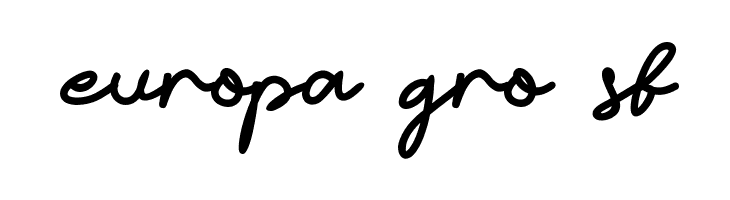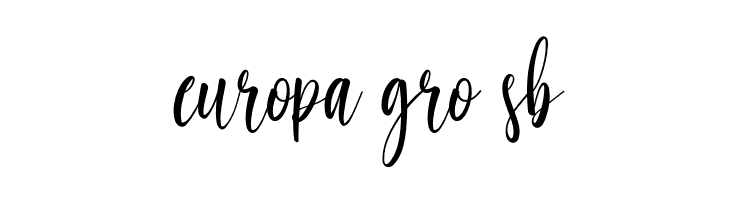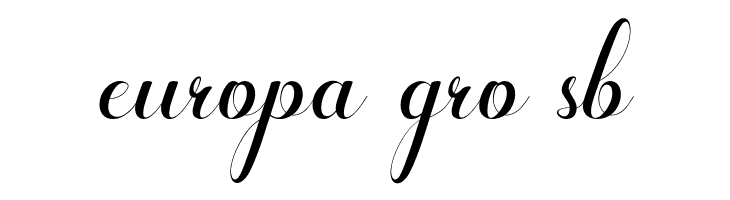
An elegant script font with intricate loops and swashes, perfect for sophisticated designs.
A dynamic and flowing script font with elegant, fluid strokes.
A playful and whimsical script font with elegant curves and dynamic contrast.
A charming, cursive script font with elegant, flowing lines and decorative flourishes.
A lively, cursive font with interconnected letters and a playful, elegant style.
A lively, flowing script font with elegant, cursive strokes.
A playful, flowing script font with a natural handwritten style.
A cursive, handwritten font with elegant loops and expressive flourishes.